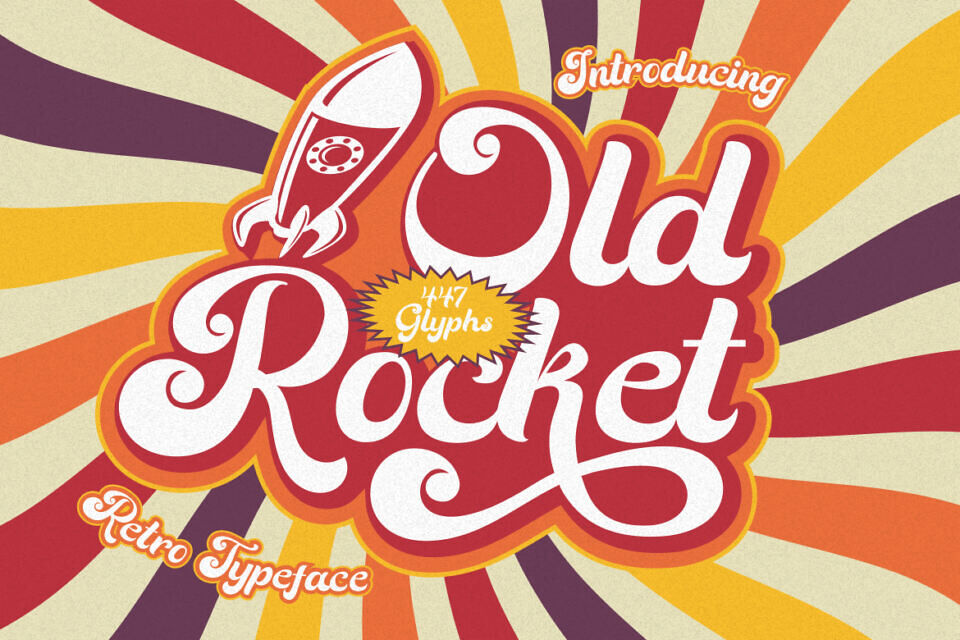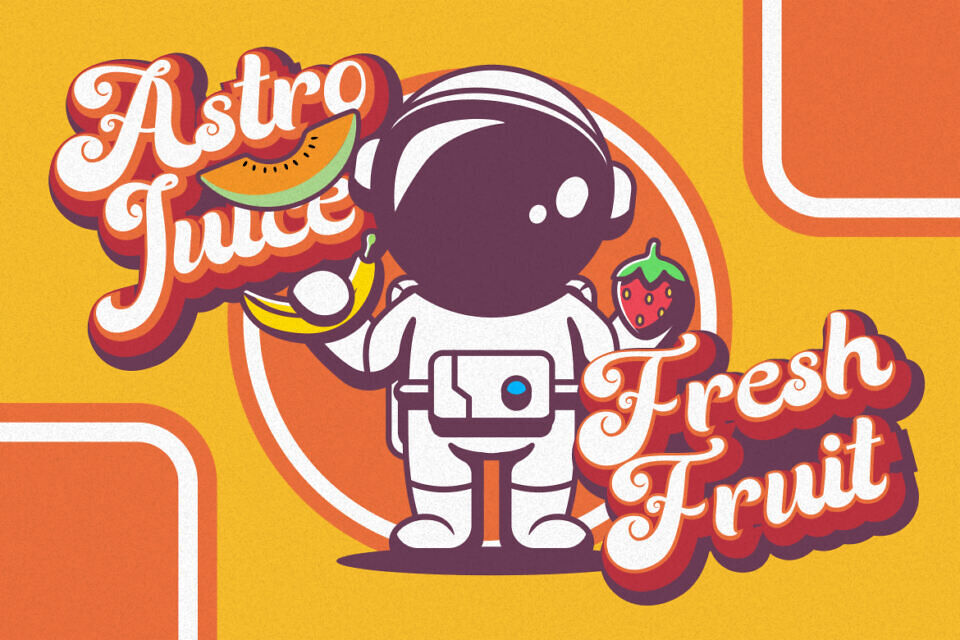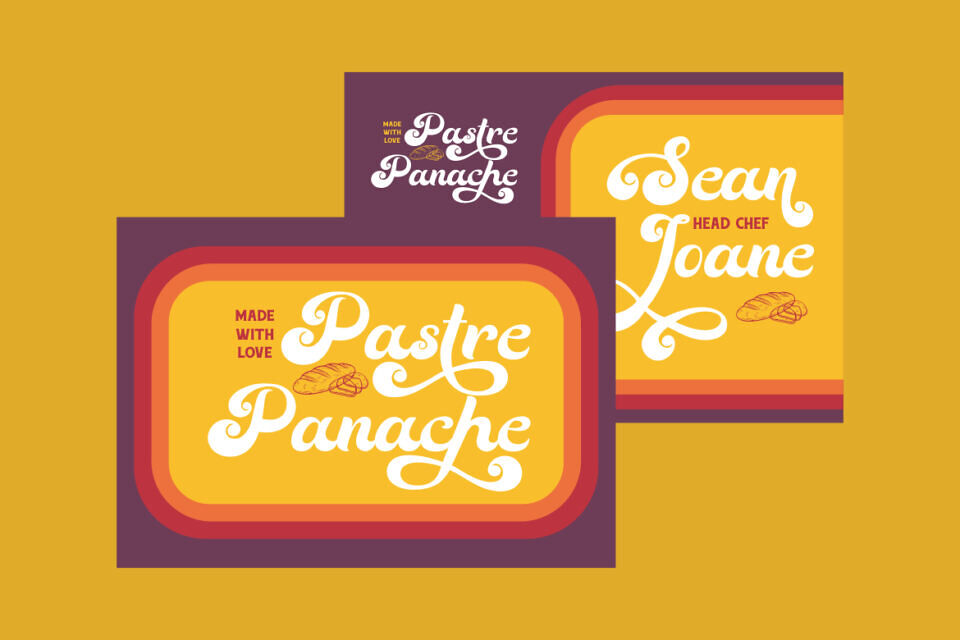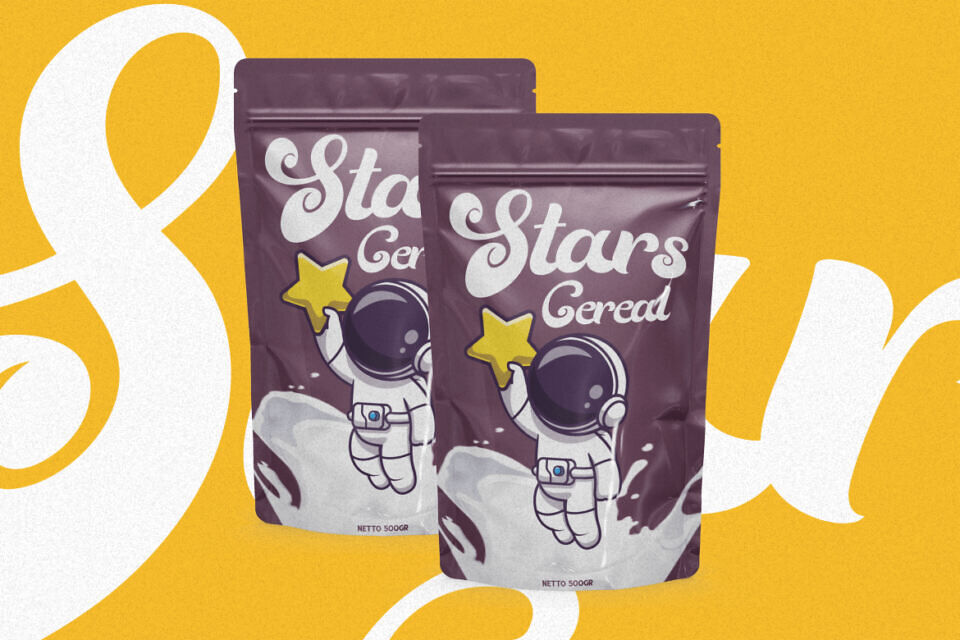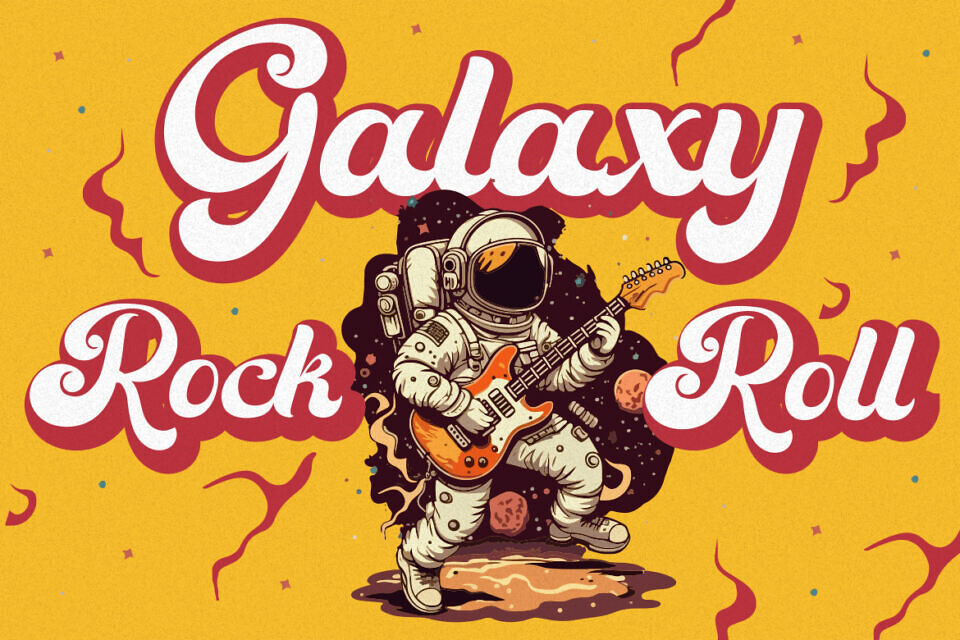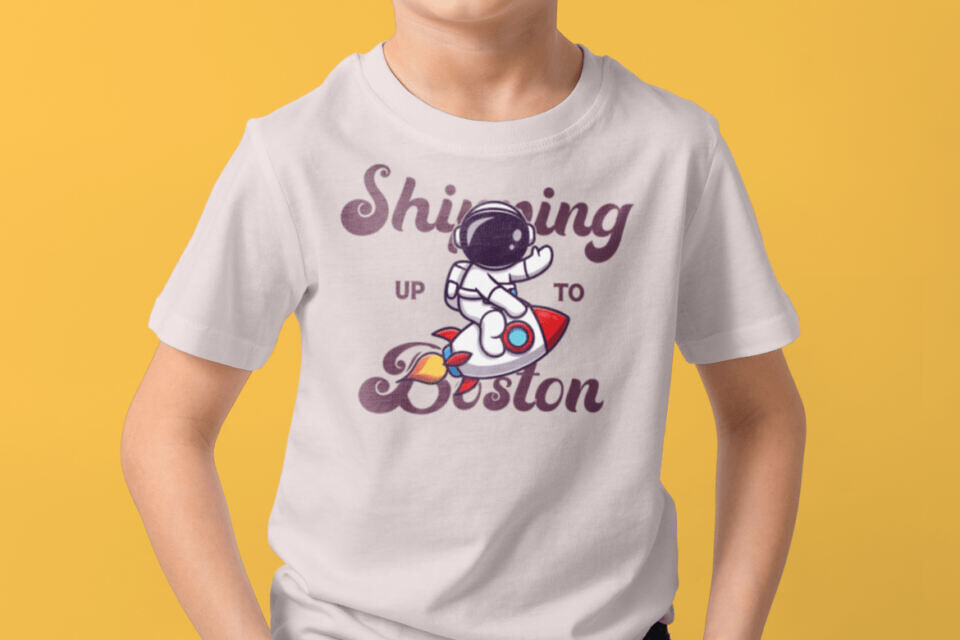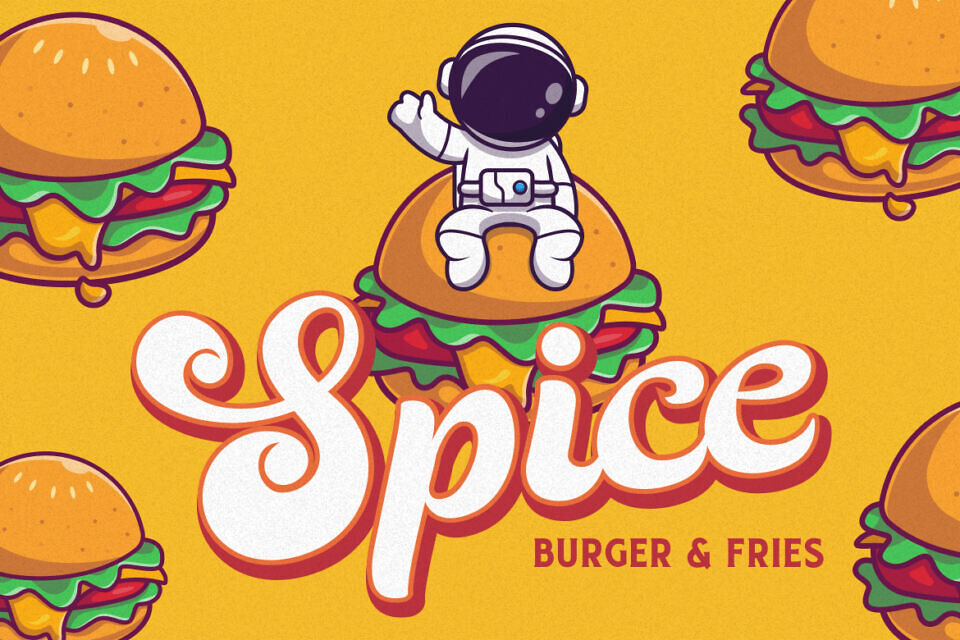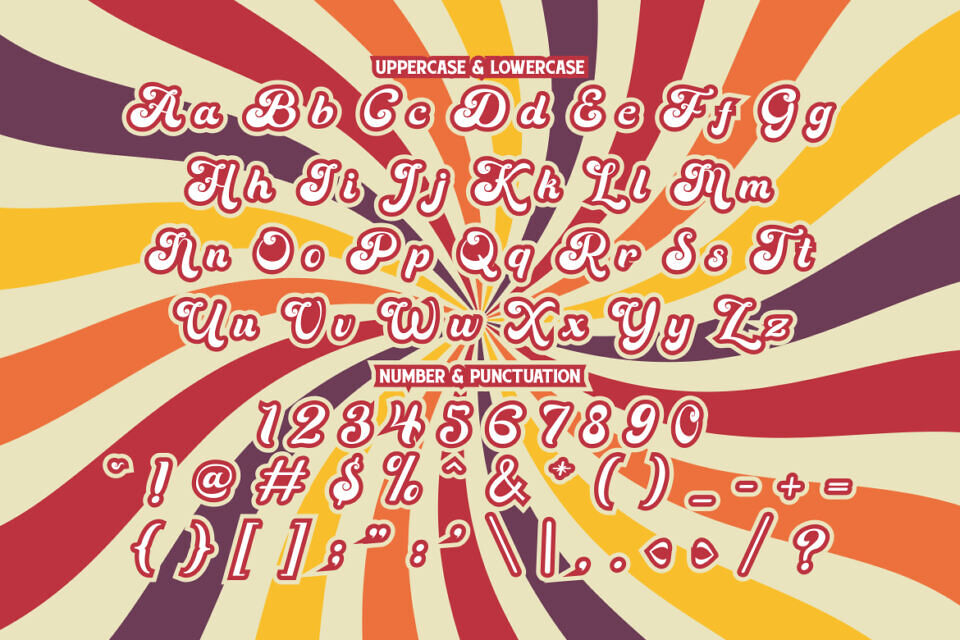
Old Rocket Font
Old Rocket is your time machine back to the retro era, delivering a unique and groovy script font that screams vintage charm. This typeface showcases distinctive, bold, and groovy letterforms that exude nostalgia and charisma, making it the ideal choice for retro-themed projects.
Featuring a wide array of alternative characters, Old Rocket provides versatility for various design purposes. Whether it’s logo design, branding, invitations, packaging, poster creation, title styling, business materials, greeting cards, magazine layouts, headlines, or other retro-themed designs, this typeface captures the essence of the era effortlessly.